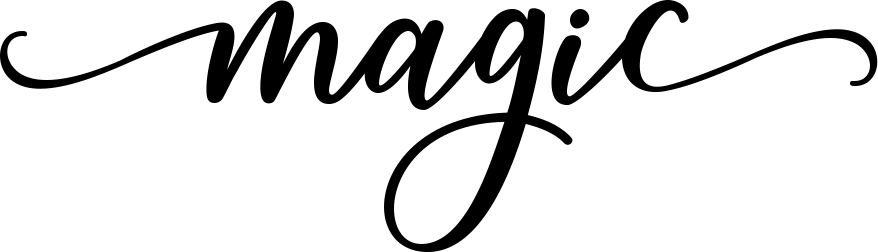
Magic Font
Level up your prestige and make a super stunning text-based layout with Magic. This calligraphy font with tender and delicate letters is perfect for business cards, wedding cards, logos, and so on. Hit the download button and see how astonishing this luxury cursive font appears. Come and visit our boundless website.